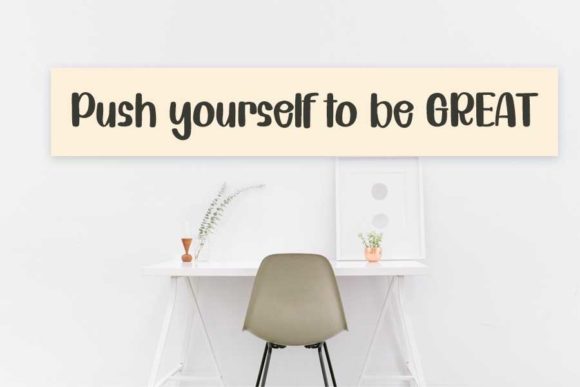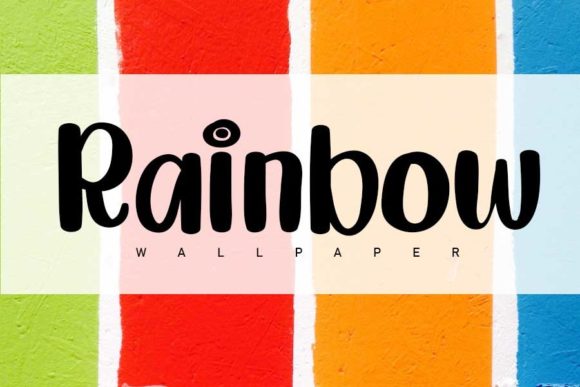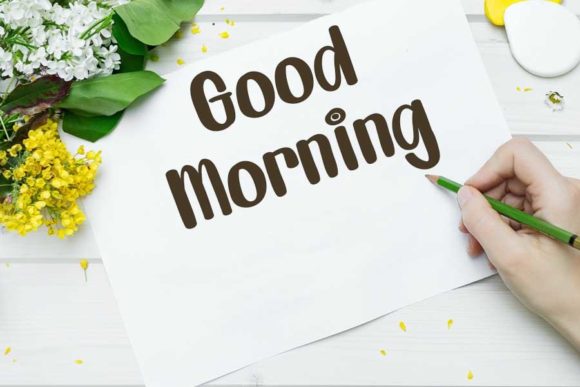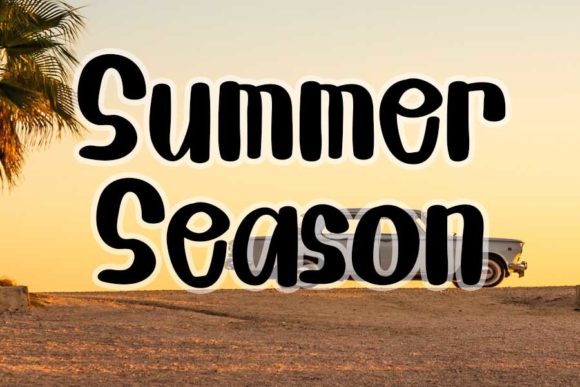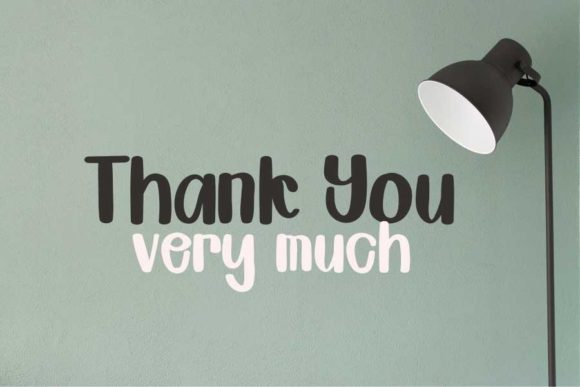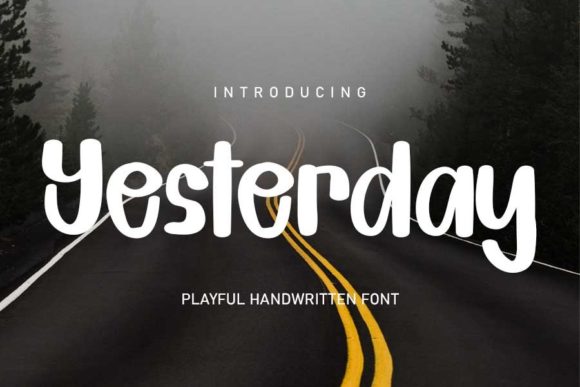
Yesterday Font
About Yesterday Font
Yesterday is a chic, casual and friendly handwritten font. Whether you’re looking for fonts for Instagram or calligraphy scripts for DIY projects, this font will turn any creative idea into a true piece of art!